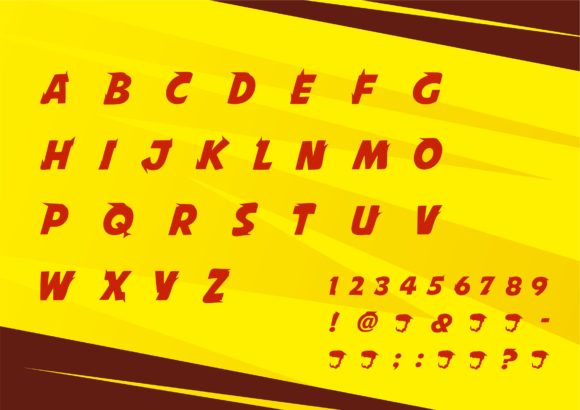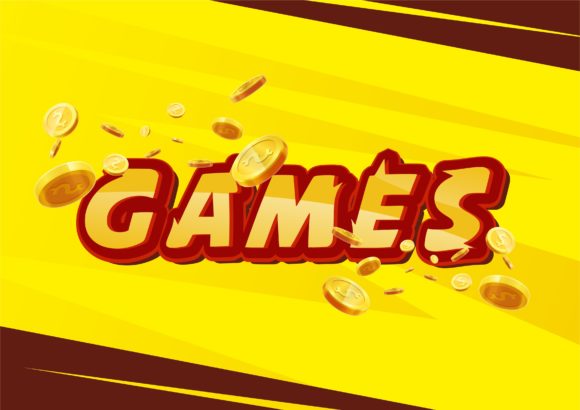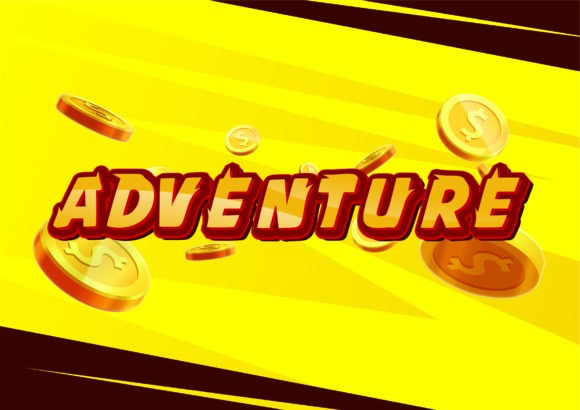
The Designer’s Dilemma: Finding the Perfect Font for Adventure Game Characters
I still remember the frustration of working on a project for an adventure game, determined to create a captivating title screen that would draw players in. The graphics were on point, but the font I was using just didn’t cut it. It was too bland, too generic, and completely failed to convey the sense of excitement and danger that the game embodied. I’ve been there, done that, and got the t-shirt – and that’s why I’m thrilled to share with you a font that could have saved my sanity: Fortune Font.
A Cool Display Font for the Win
Fortune is a cool display font that’s specifically designed with high weight and a bold personality, making it an excellent choice for adventure game characters. Its firm characters are perfect for creative projects that need a bit of oomph, whether it’s an inspiring wall poster, a game title, or anything in between.
An Honest Review of Fortune Font
What I Love About Fortune Font
- ✨ High-impact font that’s perfect for making a statement
- ✅ Firm characters that exude confidence and adventure
- 🎉 Support for adventure game characters – it’s like it was made for my project!
- 💻 Crafted with care to ensure optimal performance across different platforms
While Fortune Font is an excellent choice, there are a few things to keep in mind:
- 🤔 Limited use cases – due to its bold nature, it might not be the best fit for body text or smaller font sizes
- ⚠️ Requires careful kerning to ensure optimal readability
Exploring OpenType Features, Glyphs, and Stylistic Alternates
One of the best things about Fortune Font is its support for OpenType features, glyphs, and stylistic alternates. Here are a few tips on how to make the most of these features:
- Experiment with different stylistic alternates to add some personality to your text
- Use glyphs to add icons and other visual elements to your design
- Adjust the font’s OpenType features to optimize readability and aesthetics
The Backstory Behind Fortune Font
Fortune Font was designed with the adventure game enthusiast in mind. Its creator, a passionate typographer, wanted to craft a font that would capture the essence of excitement and danger that comes with exploring new worlds. The result is a font that’s both bold and beautiful, perfect for making a statement in your designs.
Q: What type of projects is Fortune Font best suited for?
A: Fortune Font is perfect for creative projects that need a bold, adventurous vibe, such as game titles, posters, and branding.
Q: Is Fortune Font suitable for body text?
A: Due to its bold nature, Fortune Font is best used for headlines, titles, and other display text. For body text, you may want to choose a font with better readability.